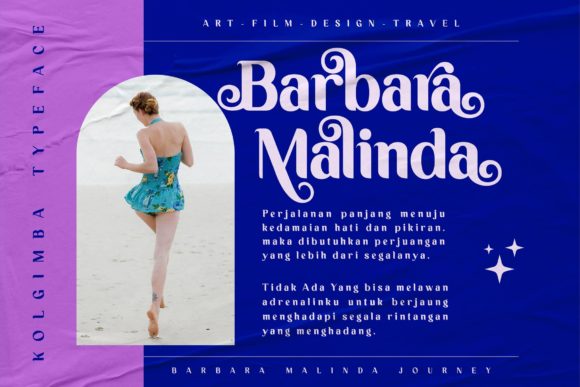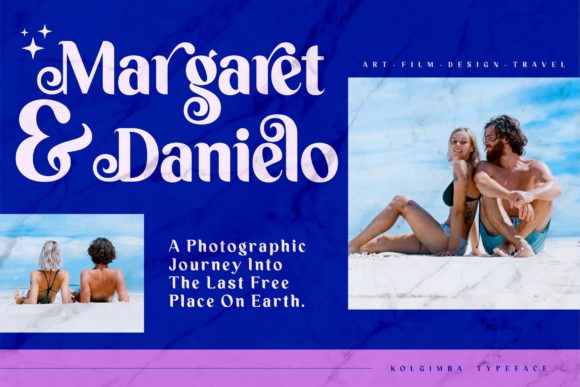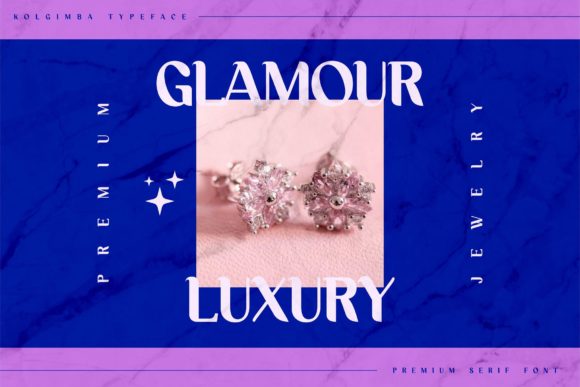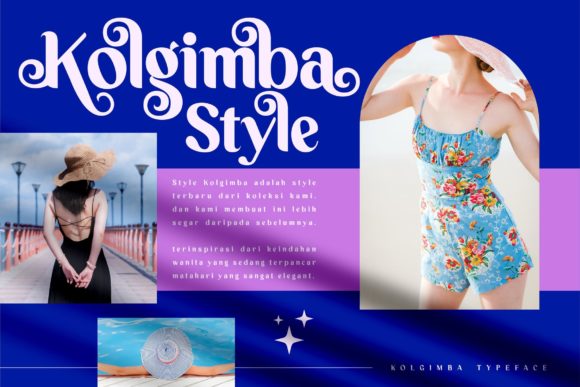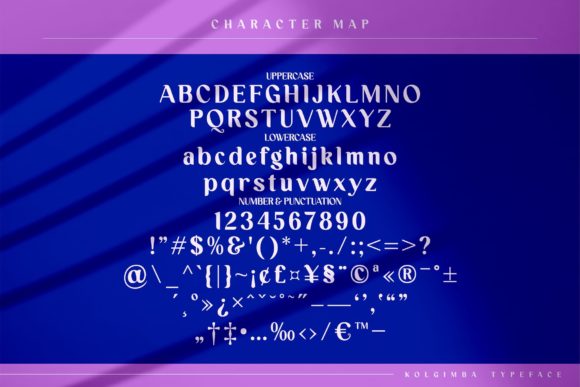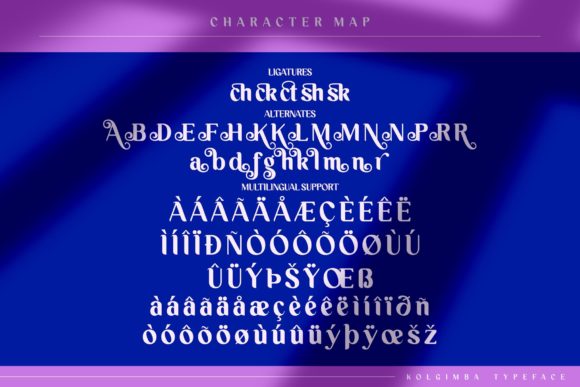
Introduction to Kolgimba Font
As designers, we’ve all been there – staring at a blank canvas, searching for the perfect font to bring our creative project to life. It’s that moment of pure inspiration when you stumble upon a font that not only complements your design but elevates it to a whole new level. For me, that moment came when I discovered the Kolgimba Font. This stunning, bold, and stylish serif font is a game-changer for any creative project.
With its high-quality design and PUA encoding, accessing all of the glyphs and swashes is a breeze. This means you can add the Kolgimba Font confidently to your favorite creations, knowing that you can customize it to perfection. Whether you’re working on a design project or creating a new visual identity, the Kolgimba Font is an invaluable design resource that’s sure to impress.
Key Features of Kolgimba Font
- Unique, creative design perfect for a variety of projects, including logos, branding, and graphics.
- Transparent background allows for seamless integration with other design elements, making it a valuable design resource.
- High-resolution design, suitable for print and digital applications, ensuring crisp and clear text display.
- Perfect for designers and artists looking for a unique, high-quality font to elevate their creative project.
Honest Review: Kolgimba Font
I recently had the chance to work with the Kolgimba Font, and I must say it’s a solid addition to any designer’s toolkit. This free download has some great features that make it perfect for creative projects.
- High-quality glyphs that are crisp and clear, even at smaller sizes.
- A wide range of weights and styles, making it easy to find the perfect fit for your design.
- Transparent background option, which is a game-changer for designers who want to customize their backgrounds.
One of the things that stood out to me was the level of detail in the design. The Kolgimba Font is perfect for designers who want to add a touch of elegance to their projects.
- Limited language support, which may be a problem for designers who need to work in multiple languages.
Overall, I’m impressed with the Kolgimba Font. It’s a solid design resource that can add a lot of value to your creative projects.
Tips for Getting the Most Out of Kolgimba Font
For the best results, use Kolgimba Font with a transparent background to create a clean and modern look. Experiment with different font sizes and styles to find the perfect combination for your design. You can also pair Kolgimba Font with other high-quality design resources to create a unique and eye-catching design.
Common Use Cases for Kolgimba Font
Kolgimba Font is a versatile font that can be used in a variety of creative projects, including logos, business cards, and social media graphics. Its modern and sleek design makes it perfect for a wide range of industries and styles.